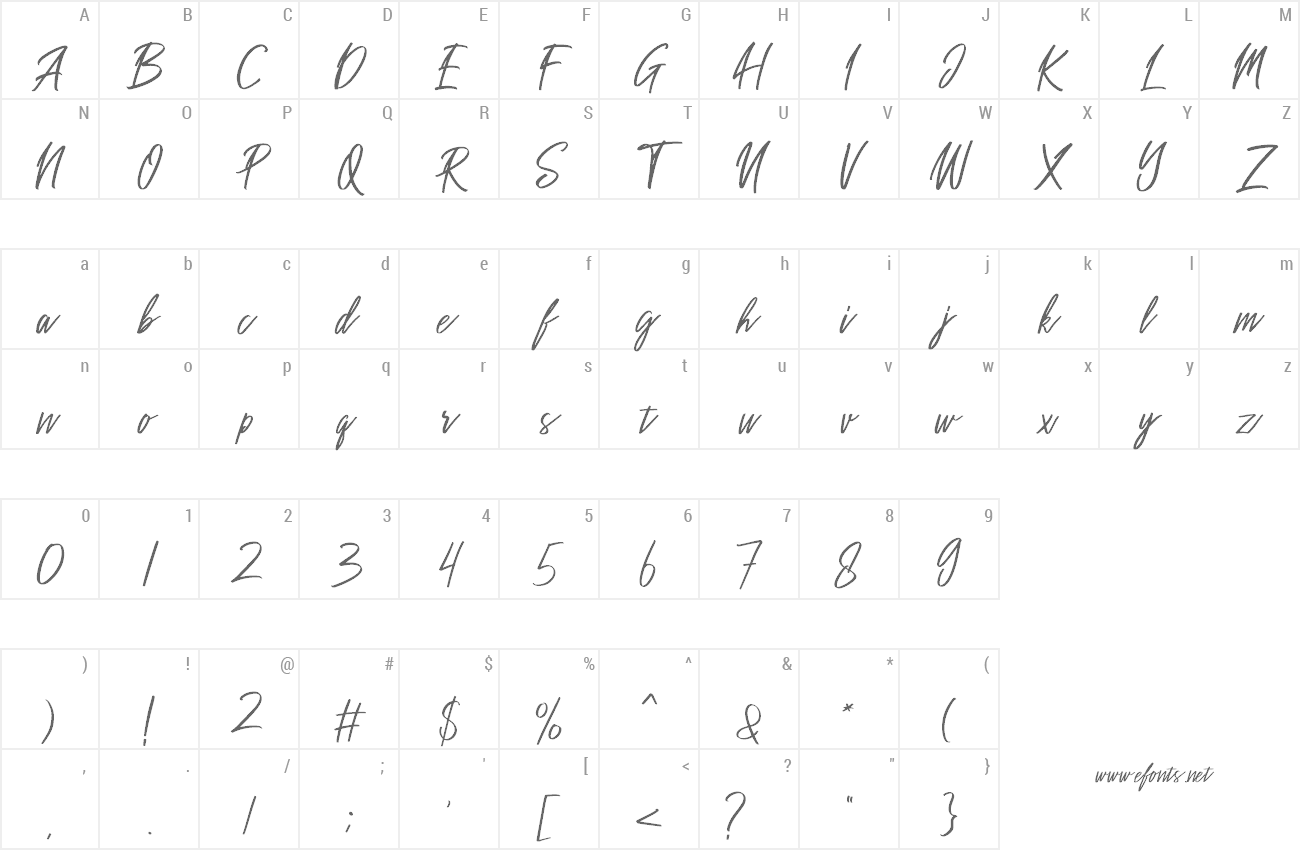
Preview and download Sakoda Font. Created by Indotitas Squad in Script Handwritten styles with Free for personal use license.
| Font name: | Sakoda |
| Author: | Indotitas Squad |
| Note by Indotitas Squad | |
Sakoda Signature Font is a elegant and modern looking handwritten script, ideal for use in projects that need an organic and natural style. Get Premium version here : https://crmrkt.com/pervD6 or https://www.creativefabrica.com/product/sakodota/ You can Donate here Paypal address: mustaqim.ibraa@gmail.co Thanks Indotitas |